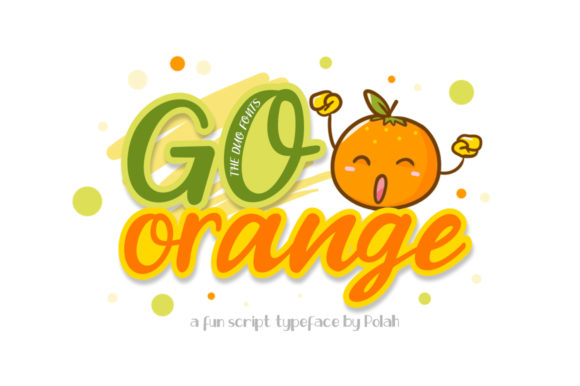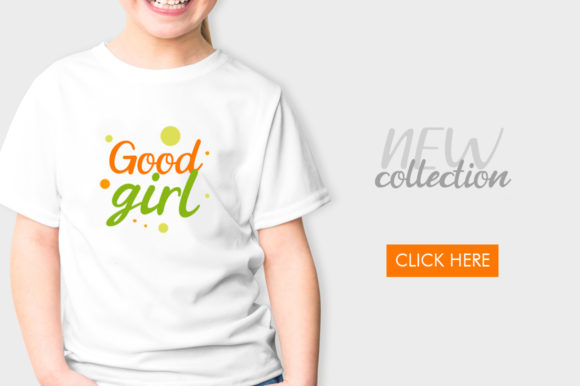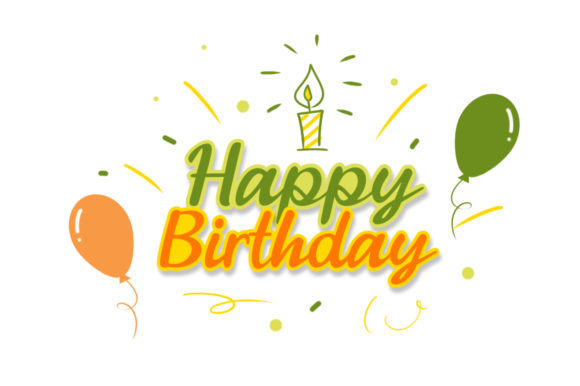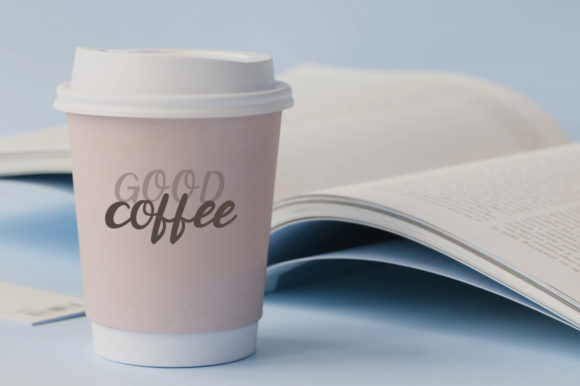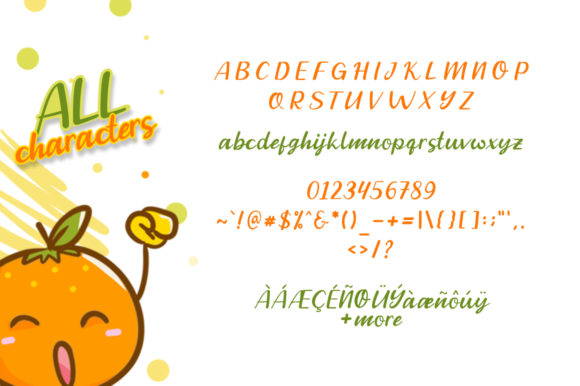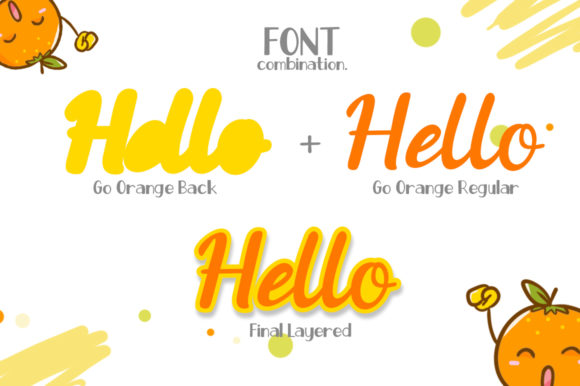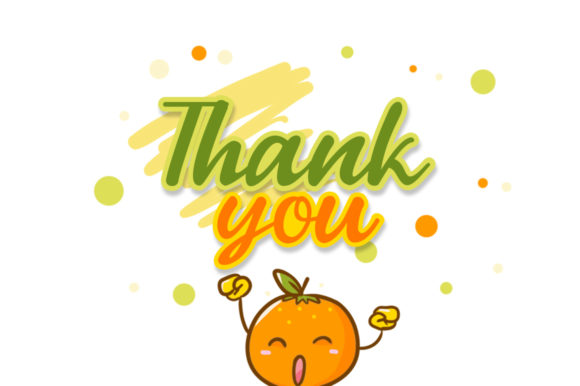
Go Orange Font
About Go Orange Font
The Go Orange is a fun script typeface. It includes awesome characters in 2 different styles: regular and super bold (back).
It’s perfect for name cards, posters, logos, magazines, covers, and even large-scale artwork.